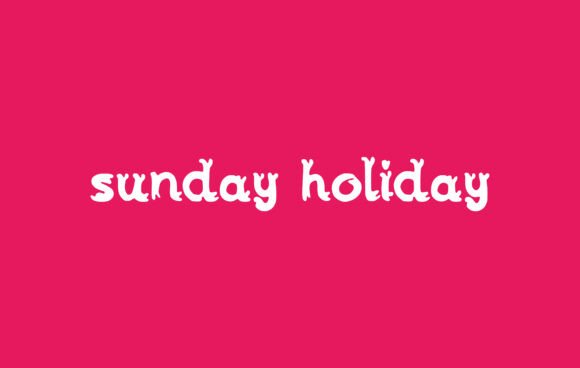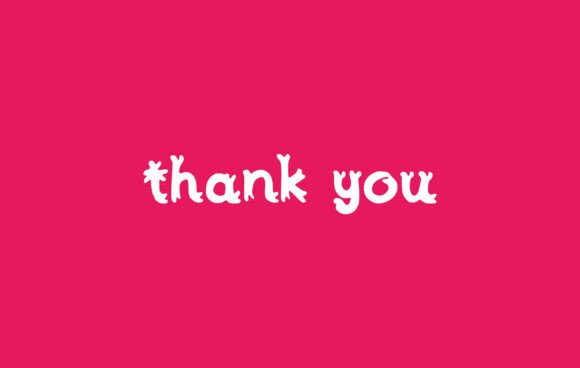
Dustyledger Font: Elevate Your Designs with a Romantic Handwritten Touch
In the world of typography, fonts play a crucial role in bringing creative ideas to life. For designers and crafters looking for a unique and authentic touch, the Dustyledger font is an excellent choice. This beautifully crafted handwritten font combines elegance with a romantic flair, making it a perfect addition to various design projects.
What Makes Dustyledger Font Stand Out?
DustyLedger font is an authentic handwritten font that exudes a sense of romance and sophistication. Its expertly designed characters are legible and versatile, making it suitable for a wide range of applications. Whether you’re looking to create stunning magazine headlines, engaging social media content, or beautiful branding materials, this font is sure to impress.
One of the key features that sets Dustyledger apart is its ability to add a personal touch to any design. The font’s handwritten style gives it a unique and organic feel, making it perfect for designs that require a more human and approachable tone. From wedding invitations and cards to blog posts and website content, Dustyledger font can elevate your creative ideas to new heights.
Key Characteristics of Dustyledger Font
- Authentic Handwritten Style: Dustyledger font boasts an authentic handwritten style that adds a touch of elegance and sophistication to any design.
- Romantic Touch: The font’s romantic flair makes it perfect for designs that require a sense of whimsy and charm.
- Legibility: The font is highly legible, making it suitable for both title and body text.
- Versatility: Dustyledger font can be used for a wide range of design projects, including magazine headlines, social media content, branding materials, wedding invitations, and more.
Design Applications for Dustyledger Font
Dustyledger font is an incredibly versatile font that can be used in various design applications. Here are some ideas to get you started:
- Magazine Headlines: Add a touch of elegance to your magazine headlines with Dustyledger font.
- Social Media Content: Use Dustyledger font to create engaging social media content that stands out from the crowd.
- Branding Materials: Incorporate Dustyledger font into your branding materials, such as logos, business cards, and letterheads.
- Wedding Invitations: Add a romantic touch to your wedding invitations and stationery with Dustyledger font.
- Cards and Stationery: Use Dustyledger font to create beautiful cards and stationery for special occasions.
Tips for Using Dustyledger Font Effectively
To get the most out of Dustyledger font, here are some tips to keep in mind:
- Pair with Other Fonts: Experiment with pairing Dustyledger font with other fonts to create a unique and visually appealing combination.
- Adjust Font Size: Adjust the font size to suit your design needs, ensuring that the text is legible and easy to read.
- Use Color Effectively: Use color effectively to enhance the overall look and feel of your design.
In conclusion, Dustyledger font is a beautiful and versatile handwritten font that can elevate your creative ideas to new heights. With its romantic touch, legibility, and versatility, it’s perfect for a wide range of design applications. Whether you’re a designer or crafter, Dustyledger font is an excellent addition to your typography collection.